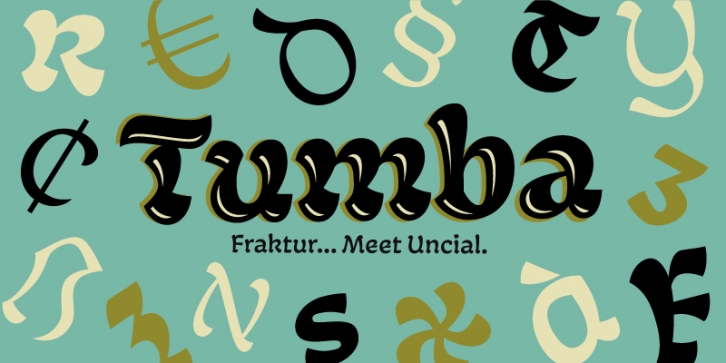
Tumba draws its inspiration from two different historic genres, the uncial and the blackletter, and manages to interpret those old forms through a modern lens with a unique stroke and ductus.